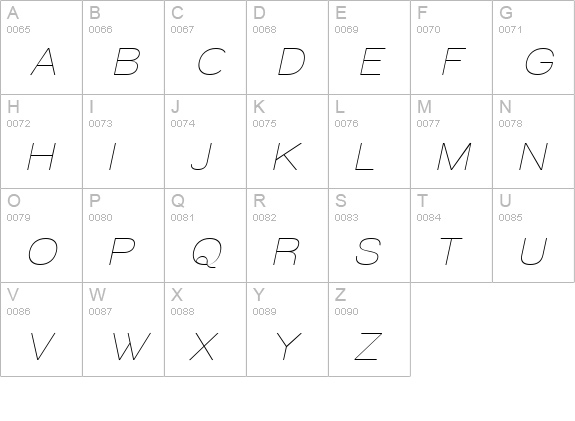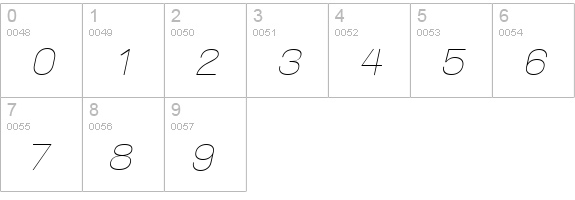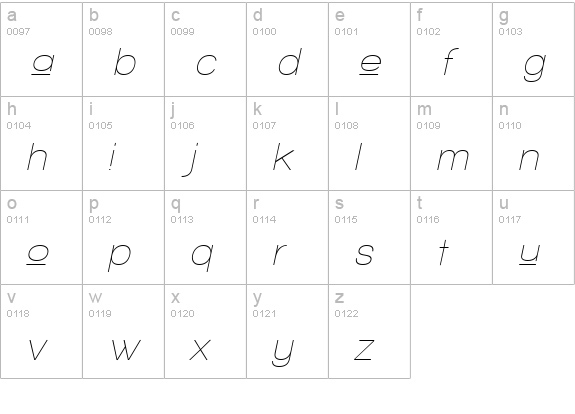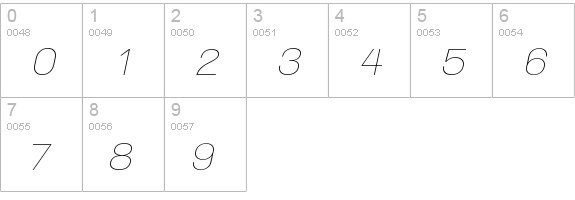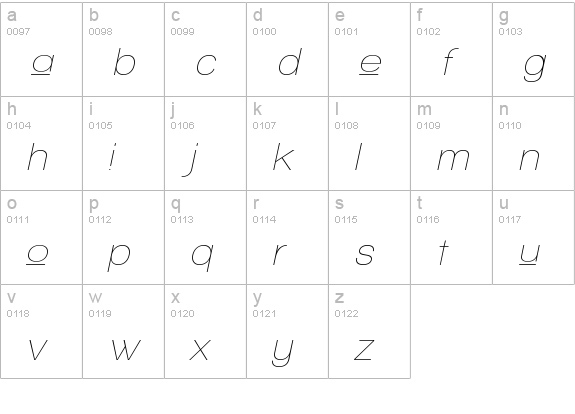
Walkway Upper Oblique is a distinctive, italic variant in the Walkway typeface family \xE2\x80\x94 well suited to design and typography projects.
Walkway Upper Oblique font is a modern and stylish typeface that adds a touch of sophistication to any design project. Its unique oblique slant gives it a dynamic and eye-catching appearance, making it perfect for headings, logos, and other graphic elements. The font features clean lines and sharp edges, making it both sleek and professional. What's even better is that Walkway Upper Oblique font is completely free to download at FontsMarket.com. This means you can elevate your designs without breaking the bank. Whether you're working on a personal project or a professional assignment, this font is sure to impress with its versatility and modern aesthetic. Don't miss out on this fantastic opportunity to enhance your designs with the timeless elegance of Walkway Upper Oblique font.